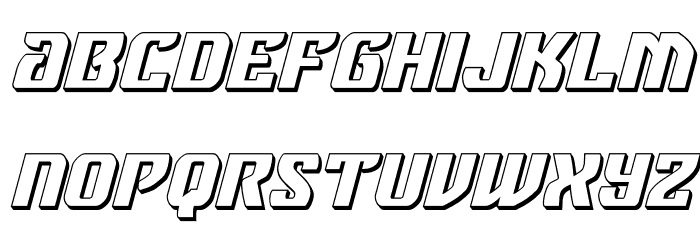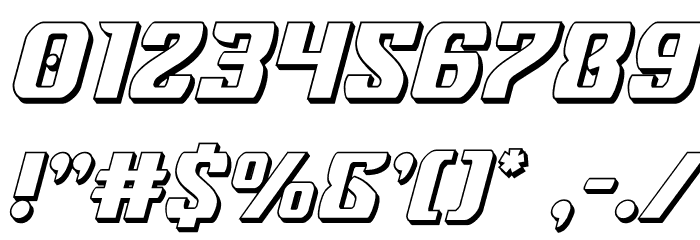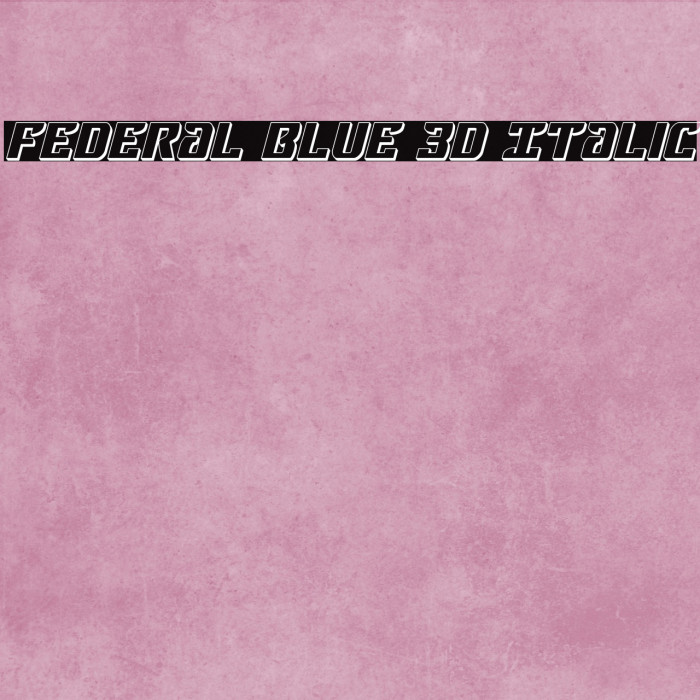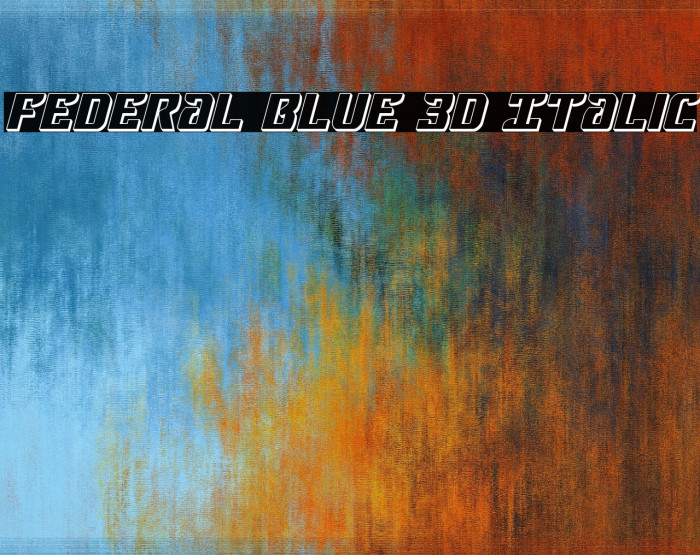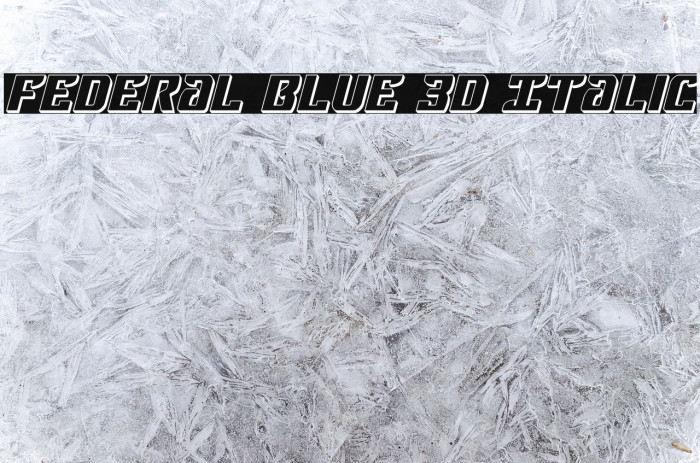
Federal Blue 3D Italic Font
This font features a bold, three-dimensional appearance with a distinct italic slant, giving it a dynamic and modern feel. The characters are outlined, creating a shadow effect that enhances the 3D illusion. The uppercase and lowercase letters maintain consistent styling, with sharp angles and clean lines. The numerals and special characters follow the same design principles, ensuring uniformity across all glyphs. This font's unique style makes it stand out, ideal for projects that require a strong visual impact.
A bold, 3D italic font with outlined characters and a modern, dynamic style.
- Proposed Projects: Ideal for eye-catching headlines, posters, branding materials, and any design needing a bold, modern touch.